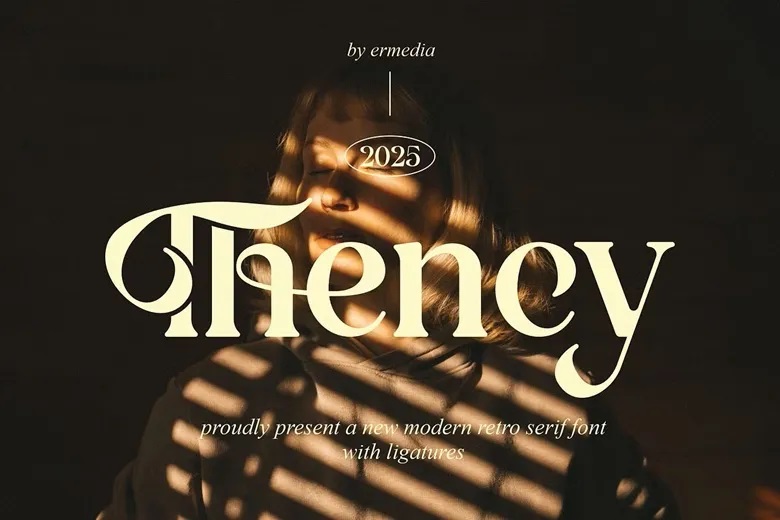
Thency Font
Thency is a contemporary and serif font in any branding and logo work. It is a beautiful modern and retro serif font. This font can be used in invitation cards, cool logos, movie titles, movie names, business cards, book titles, brand names and other designs.
Thency is a flowing serif typeface that radiates elegance and the hour. This font is an ideal match to any project due to its stylish ligatures.
Thency Serif Font